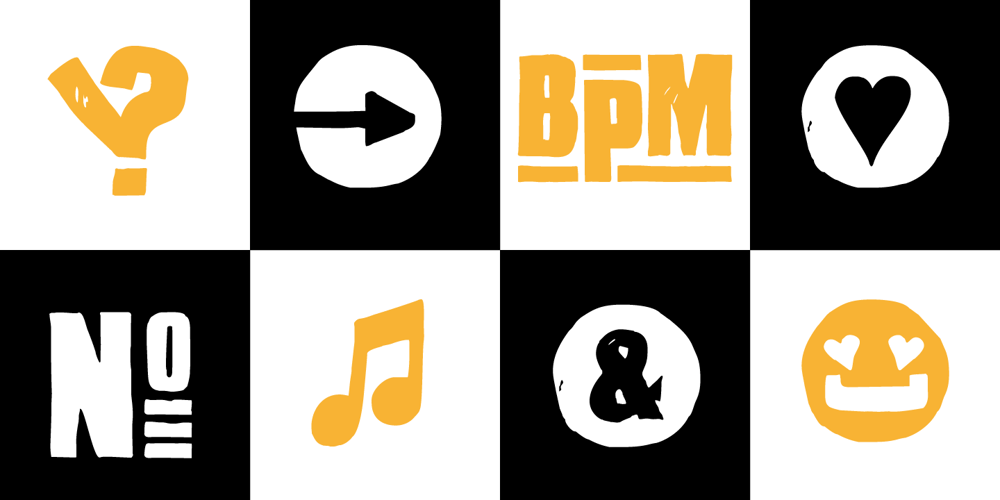
Hand Sketch Rough Poster Font Family was designed by Manuel Viergutz and published by TypoGraphicDesign. Hand Sketch Rough Poster contains 1 styles and family package options. “Hand Sketch Rough Poster” is a handmade, rough and dirty sans-serif display font for decorative headline sizes. Hand drawn. A–Z (× 2), a–z (× 2) and 0–9 (× 4) are each many different forms. Contextual alternates. Is intended to show the hand-made character and the vibrancy of the display font. The different forms of roughness creates a liveliness in the typeface. Standard ligatures like ae, oe, AE, OE, ff, fl, fi, fj, ffl, ffi, ffj and more decorative ligatures like CT, LC, LE, LH, LI, LO, LU, LY, TOO, TC, TE, TH, TU, TZ and ch, cl, ck, ct, sh, sk, st, sp, additional logotypes like BPM, fff, ppp, sfz and many more … plus Versal Eszett (Capital Letter Double S) give the font more life and shows that despite their retro-looks works with modern OpenType technology (type the word note for the symbol ♫ and the word love for the dingbat ❤ … ). Symbols like play, stop, eject, forward, backward, skip, pause and so on. The topic for the discretionary ligatures and the symbols are music. Have fun with this font – turn up the volume! How To Use – awesome magic OpenType-Features in your layout application ■ In Adobe Photoshop and Adobe InDesign, font feature controls are within the Character panel sub-menu → OpenType → Discretionary Ligatures … Checked features are applied/on. Unchecked features are off. ■ In Adobe Illustrator, font feature controls are within the OpenType panel. Icons at the bottom of the panel are button controls. Darker ‘pressed’ buttons are applied/on. ■ Additionally in Adobe InDesign and Adobe Illustrator, alternate glyphs can manually be inserted into a text frame by using the glyphs panel. The panel can be opened by selecting Window from the menu bar → Type → Glyphs. Or use sign-overview of your operating system. ■ For a overview of OpenType-Feature compatibility for common applications, follow the myfonts-help http://www.myfonts.com/help/#looks-different ■ It may process a little bit slowly in some applications, because the font has a lot of lovely rough details (anchor points). TECHNICAL SPECIFICATIONS ■ Font Name: Hand Sketch Rough Poster ■ Font Weights: Regular ■ Fonts Category: Display for Headline Size ■ Desktop-Font Format: OTF (OpenType Font for Mac + Win) + TTF (TrueType Font) ■ Web-Font Format: SVG + EOT + TTF + WOF ■ Font License: Desktop license, Web license, App license, eBook license, Server license ■ Glyph coverage: 715 ■ Language Support: Afrikaans, Albanian, Alsatian, Aragonese, Arapaho, Aromanian, Arrernte, Asturian, Aymara, Basque, Belarusian (Lacinka), Bislama, Bosnian, Breton, Catalan, Cebuano, Chamorro, Cheyenne, Chichewa (Nyanja), Cimbrian, Corsican, Croatian, Czech, Danish, Dutch, English, Esperanto, Estonian, Fijian, Finnish, French Creole (Saint Lucia), Frisian, Friulian, Galician, Genoese, German, Gilbertese (Kiribati), Greenlandic, Haitian Creole, Hawaiian, Hiligaynon, Hmong, Hopi, Hungarian, Ibanag, Iloko (Ilokano), Indonesian, Interglossa (Glosa), Interlingua, Irish (Gaelic), Istro-Romanian, Italian, Jèrriais, Kashubian, Kurdish (Kurmanji), Ladin, Latvian, Lithuanian, Lojban, Lombard, Low Saxon, Luxembourgian, Malagasy, Malay (Latinized), Maltese, Manx, Maori, Megleno-Romanian, Mohawk, Nahuatl, Norfolk/Pitcairnese, Northern Sotho (Pedi), Norwegian, Occitan, Oromo, Pangasinan, Papiamento, Piedmontese, Polish, Portuguese, Potawatomi, Quechua, Rhaeto-Romance, Romanian, Romansh (Rumantsch), Rotokas, Sami (Inari), Sami (Lule), Samoan, Sardinian (Sardu), Scots (Gaelic), Seychellois Creole (Seselwa), Shona, Sicilian, Slovak, Slovenian (Slovene), Somali, Southern Ndebele, Southern Sotho (Sesotho), Spanish, Swahili, Swati/Swazi, Swedish, Tagalog (Filipino/Pilipino), Tahitian, Tausug, Tetum (Tetun), Tok Pisin, Tongan (Faka-Tonga), Tswana, Turkish, Turkmen, Turkmen (Latinized), Tuvaluan, Uyghur (Latinized), Veps, Volapük, Votic (Latinized), Walloon, Warlpiri, Welsh, Xhosa, Yapese, Zulu ■ Specials: Alternative letters, logotypes, dingbats & symbols, accents & €. OpenType-Features like Access All Alternates (aalt), Contextual Alternates (calt), Glyph Composition/Decomposition (ccmp), Discretionary Ligatures (dlig) Denominators (dnom), Fractions (frac), Kerning (kern), Standard Ligatures (liga), Lining Figures (lnum), Numerators (numr), Old Style Figures (onum) Ordinals (ordn), Proportional Figures (pnum), Stylistic Alternates (salt), Stylistic Set 01 (ss01), Stylistic Set 02 (ss02), Stylistic Set 03 (ss03), Stylistic Set 04 (ss04), Superscript (sups), Tabular Figures (tnum) ■ Design Date: 2015 ■ Type Designer: Manuel Vier